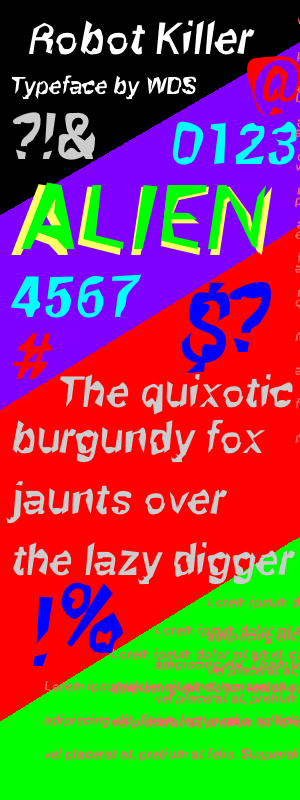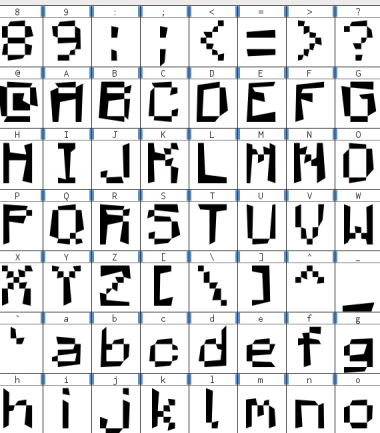
It's such a cool program. :)
Trying to figure out how to actually make a cool looking font without using FS...
For me, creating a cool design was relatively easy, once I figured out what I wanted to do—then again, I am a designer/artist.
P.S. Tehuti has been updated since you first saw it. I've added more serifs to the lc, and fixed the f more to my liking.
@TC I can only do a cool letter on a grid :P
P.S. I have improved k and m.
@j4s13: You can start your design—again, if you know what you want to do—by using a free/open source font and altering it. Just search for "public domain fonts"—there are plenty of them.
But alter it very!
@TC i'm using original work. (fs first then ff)
My first creation with FontForge. Its an edited version of the public domain (at least, according to dafont) font Roboto. I called it Robot Killer
EDIT: My gosh! I mad a good letter!
and cool a, but contrast is too high in the midlle stroke, just a suggestion. And a reversed A is an E, and an E without the middle stroke is a C...You could make a whole font out of this!
how about now?
and i'll do it an alternative way, thanks though
OOO ITS PRETTY :D
How does this weird font look so far?
um... not to my taste. but cool
My robot parody font made with FontForge
It's not my taste, but "ALIEN" looks cool. You could have a movie, "ALIEN" and it would look great! ;)
I wish ;)
My new font is based on the mine craft font. I call it mad pixel, but can't really do anything with it because when I try to save it as a .ttf font file the save fails. Strange...
This is it so far...
Didn't have enough room for the rest of the characters.
@j4s13: I used original as well, but was influenced by particular fonts; and, your new 'a' looks better.
@winty: mad pixel is great. :)